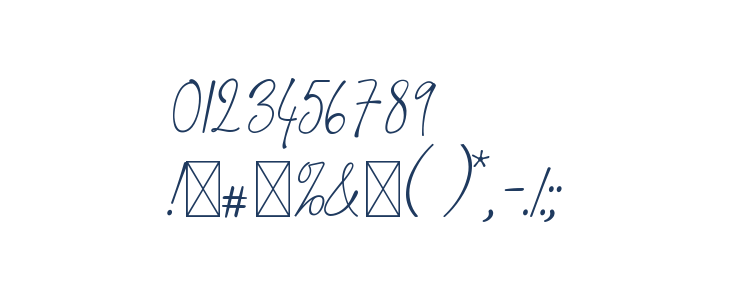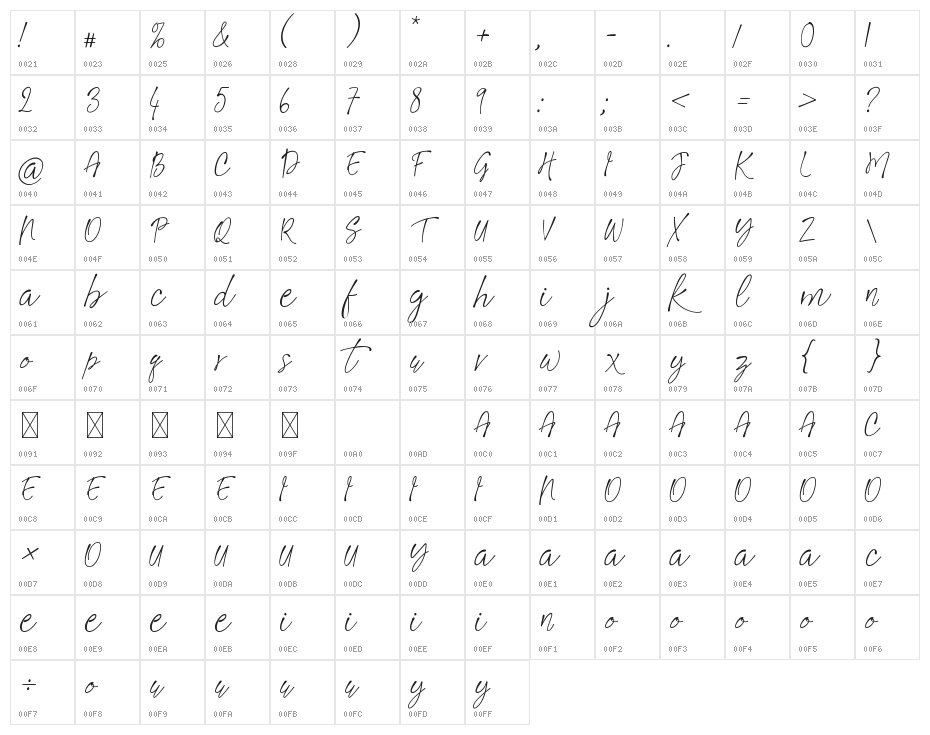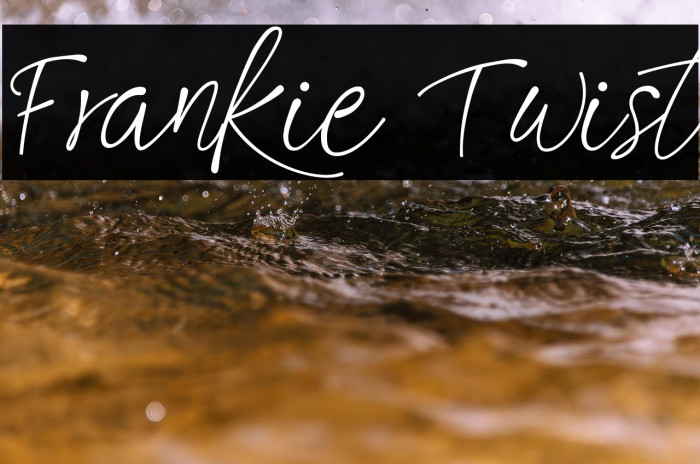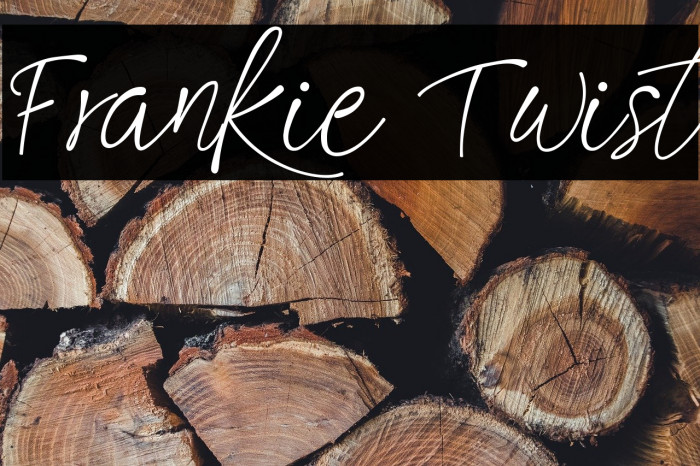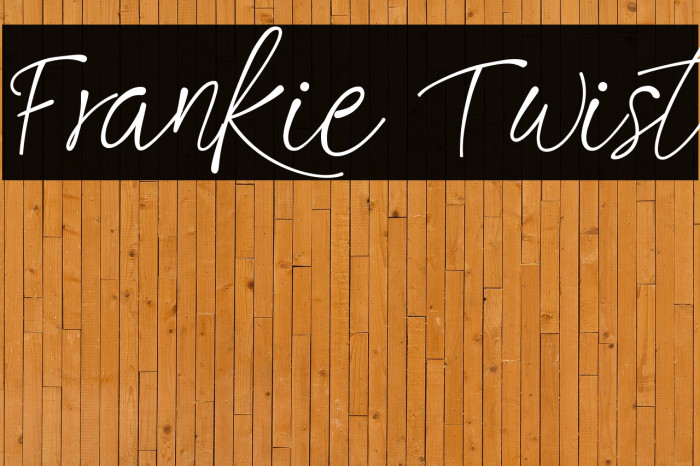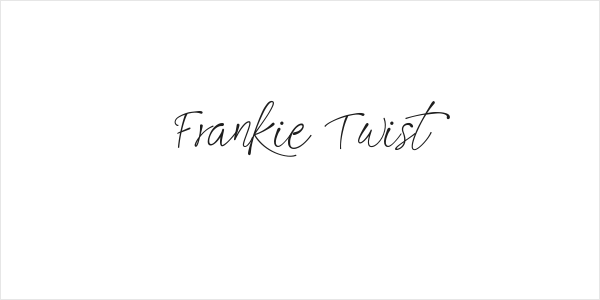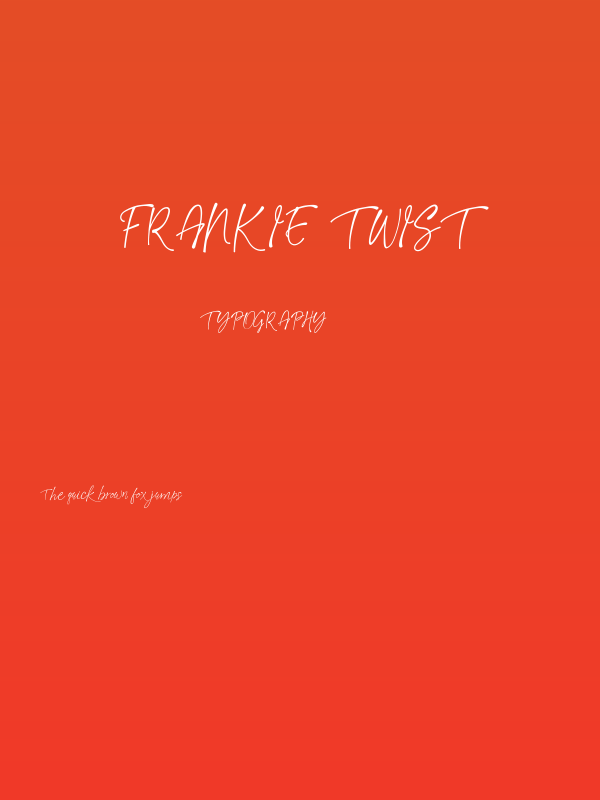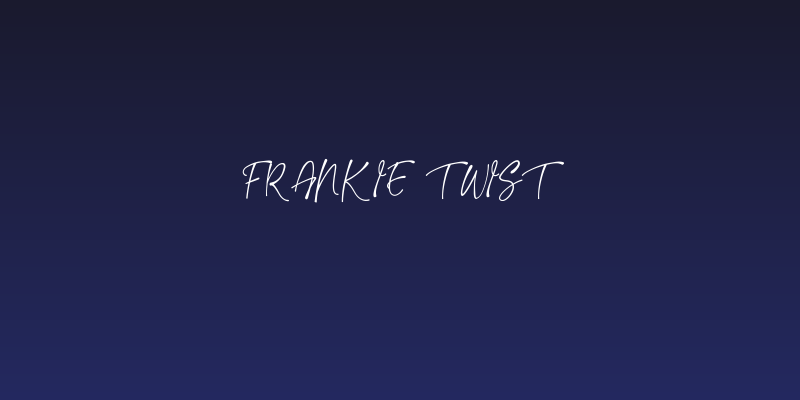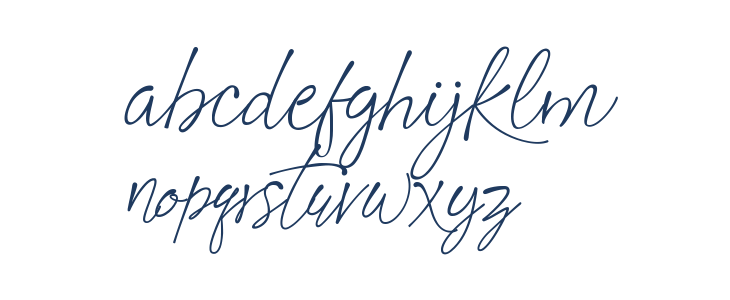
Frankie Twist Font
Frankie Twist Description
This font features a lively and dynamic script style, characterized by its fluid and continuous strokes. The letters are elegantly connected, creating a sense of movement and flow. The uppercase letters are bold and slightly slanted, while the lowercase letters maintain a consistent rhythm with their looping ascenders and descenders. The numbers are equally expressive, matching the overall cursive theme. Special characters are designed with a playful touch, adding to the font's whimsical nature. This font is perfect for projects that require a personal and artistic touch.